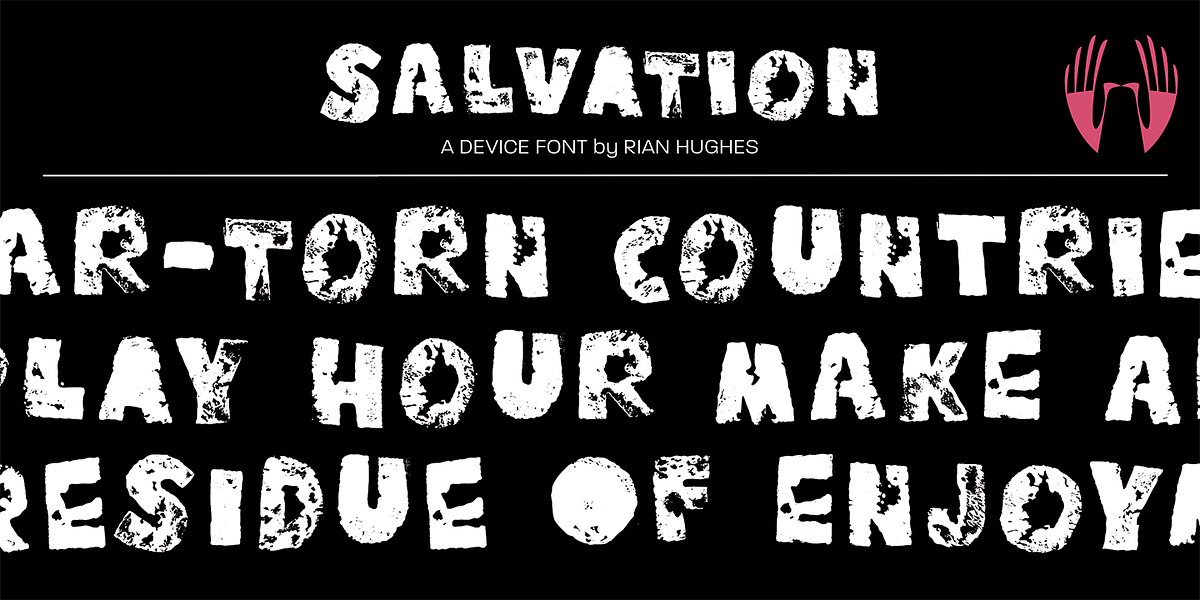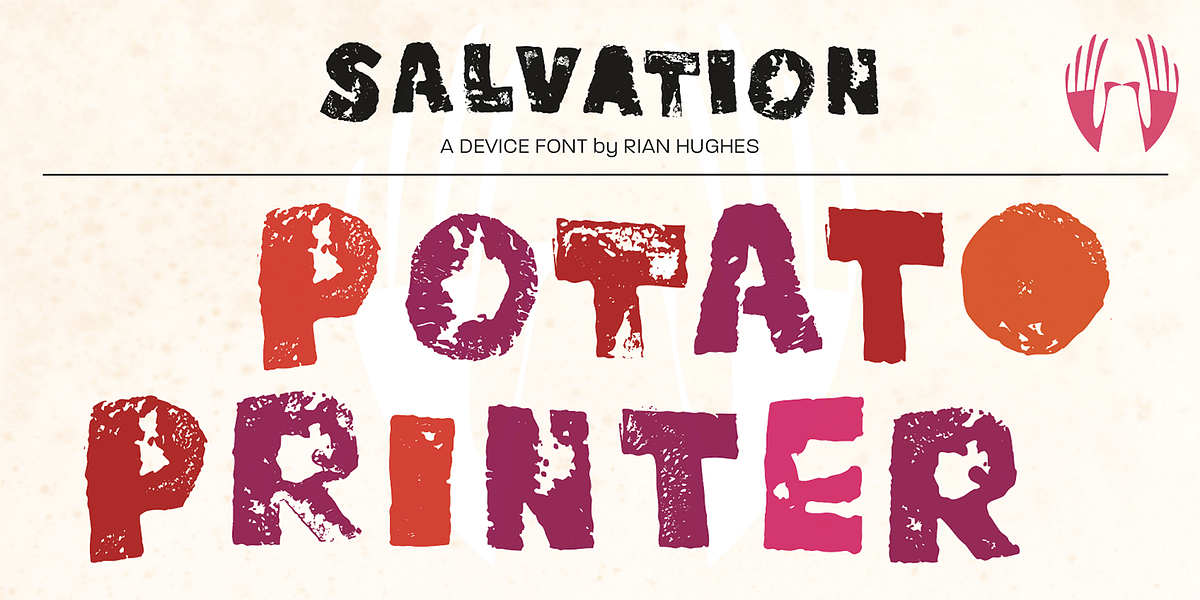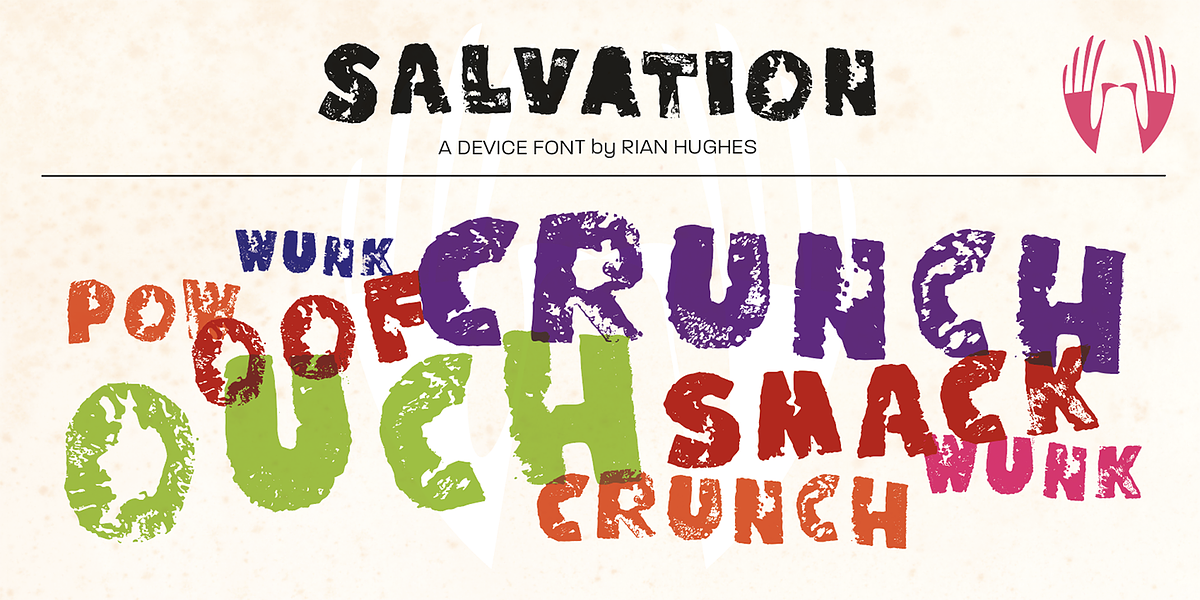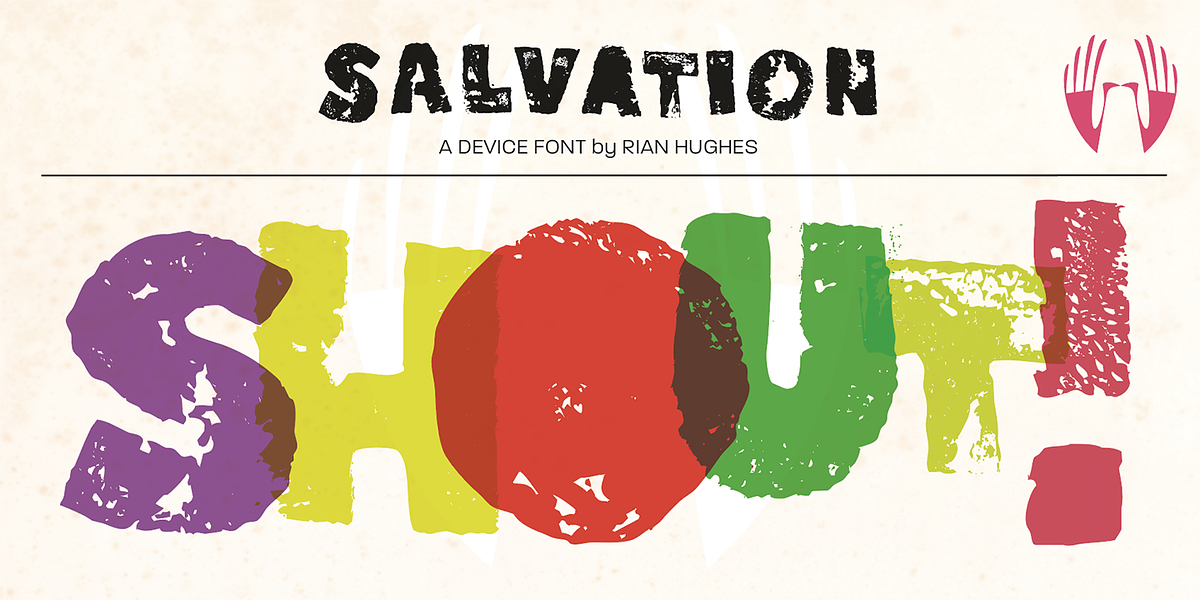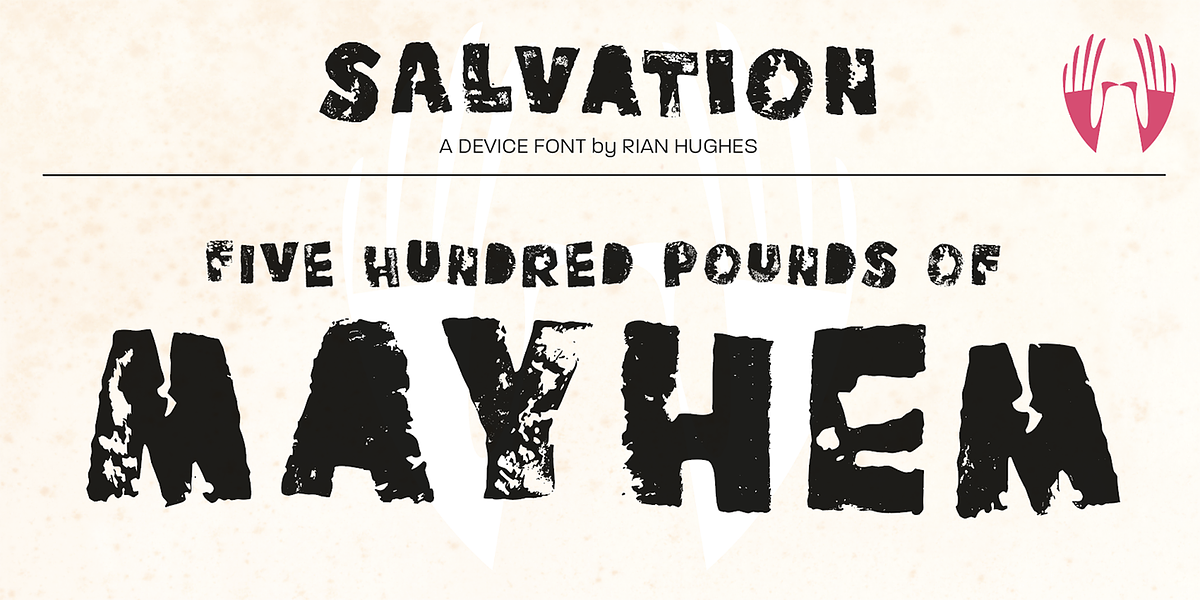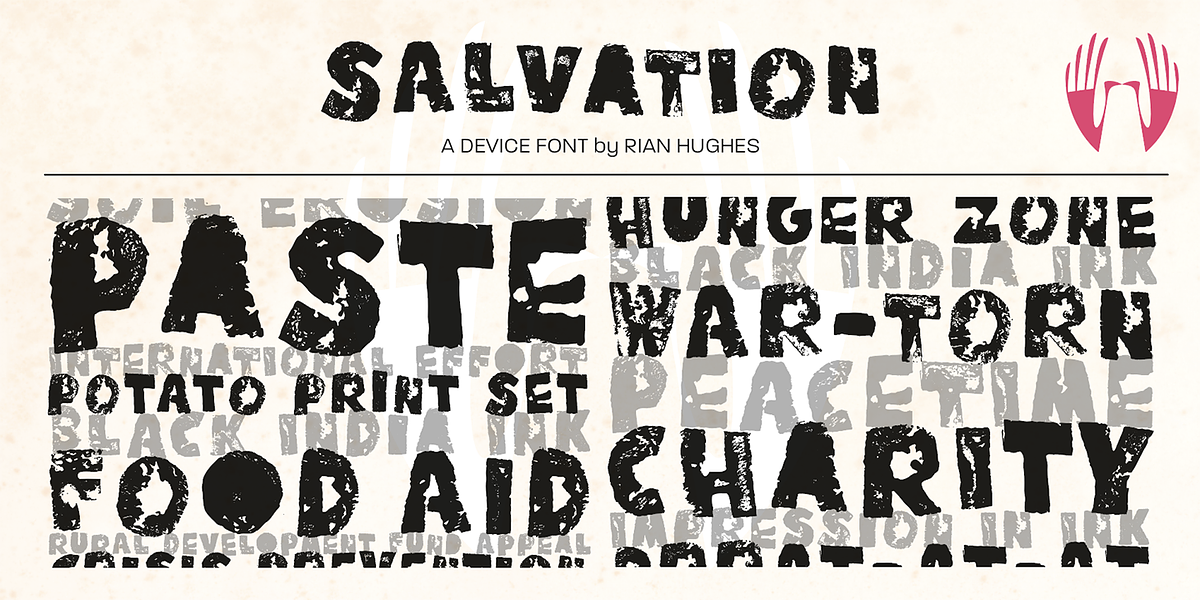
Salvation
Salvation is a grunge display script font created using a unique process. The original letters were physically carved from potatoes, scanned, and then converted into digital outlines. Three variations of each letter are included, cycling through them to create a natural, uneven texture when printed. Originally designed for an activity book, Salvation now includes numbers, punctuation, and full European language support.